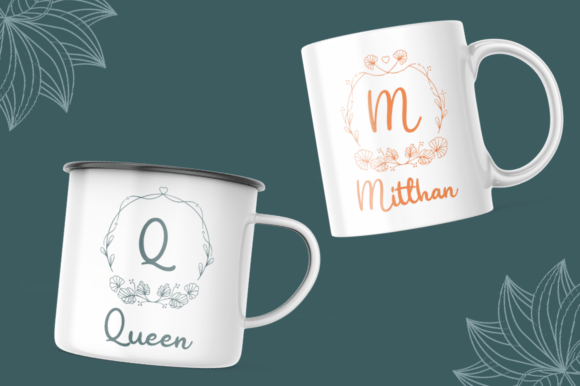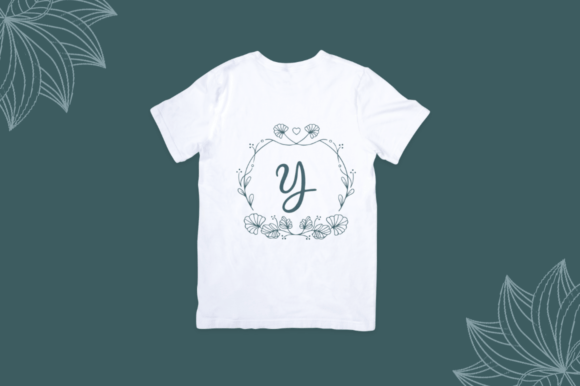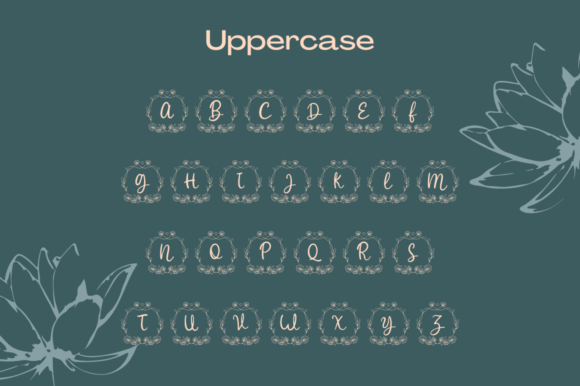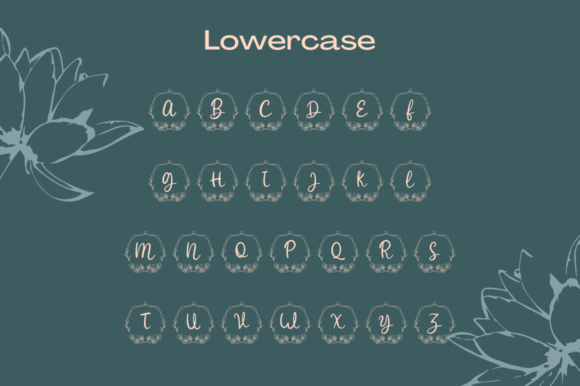
Introduction to Lotus Love Monogram Font
Lotus Love Monogram is a flower monogram font.
Fall in love with beautiful lovely designs for your special occasions, business designs, logos, branding, social media posts, and wedding cards Comes in with 2 flower styles.
Why Choose Lotus Love Monogram Font?
Lotus Love Monogram Font offers exceptional quality and versatility, making it a valuable addition to your design toolkit. Whether you’re creating for personal projects or commercial use, Lotus Love Monogram Font delivers professional results.